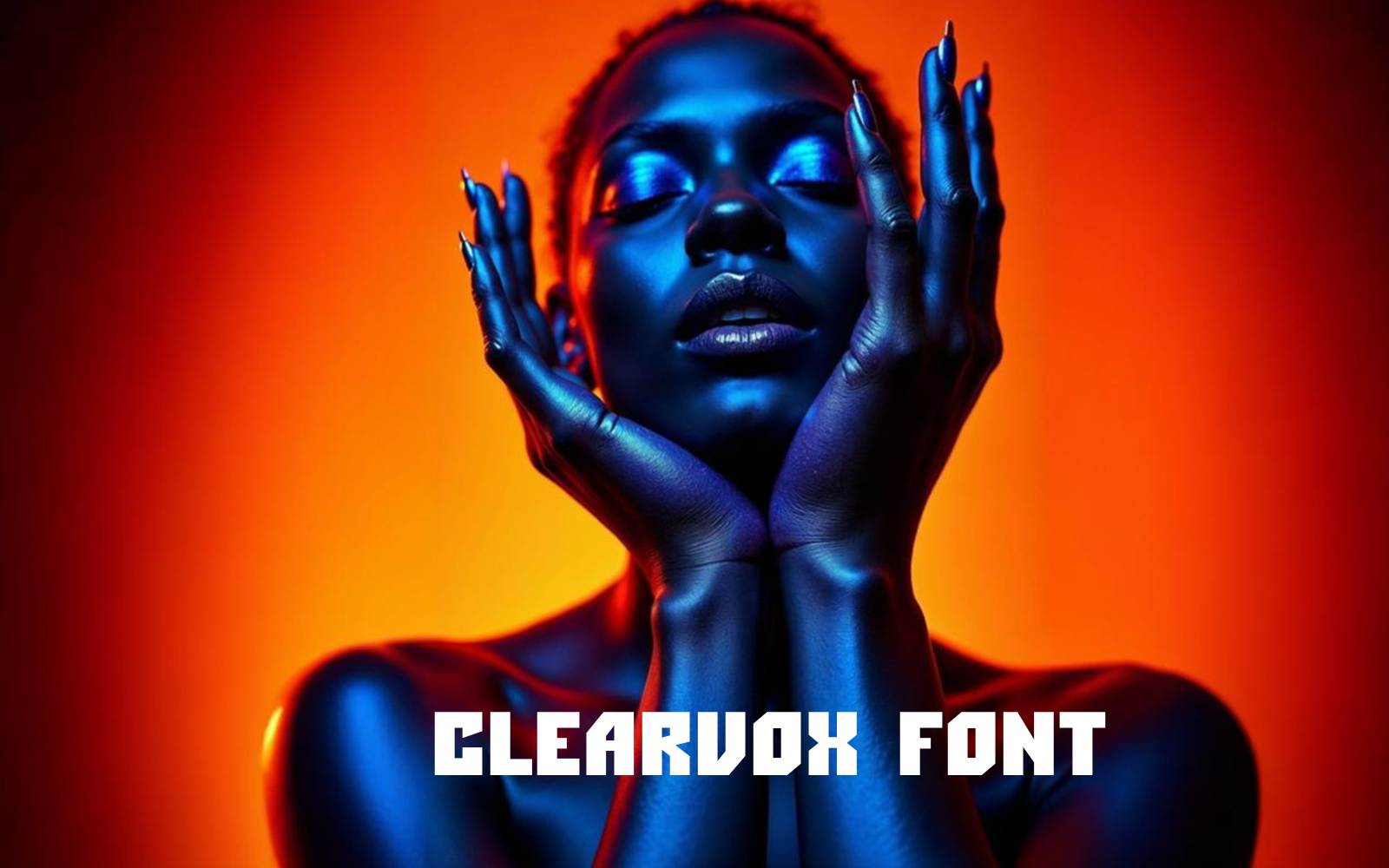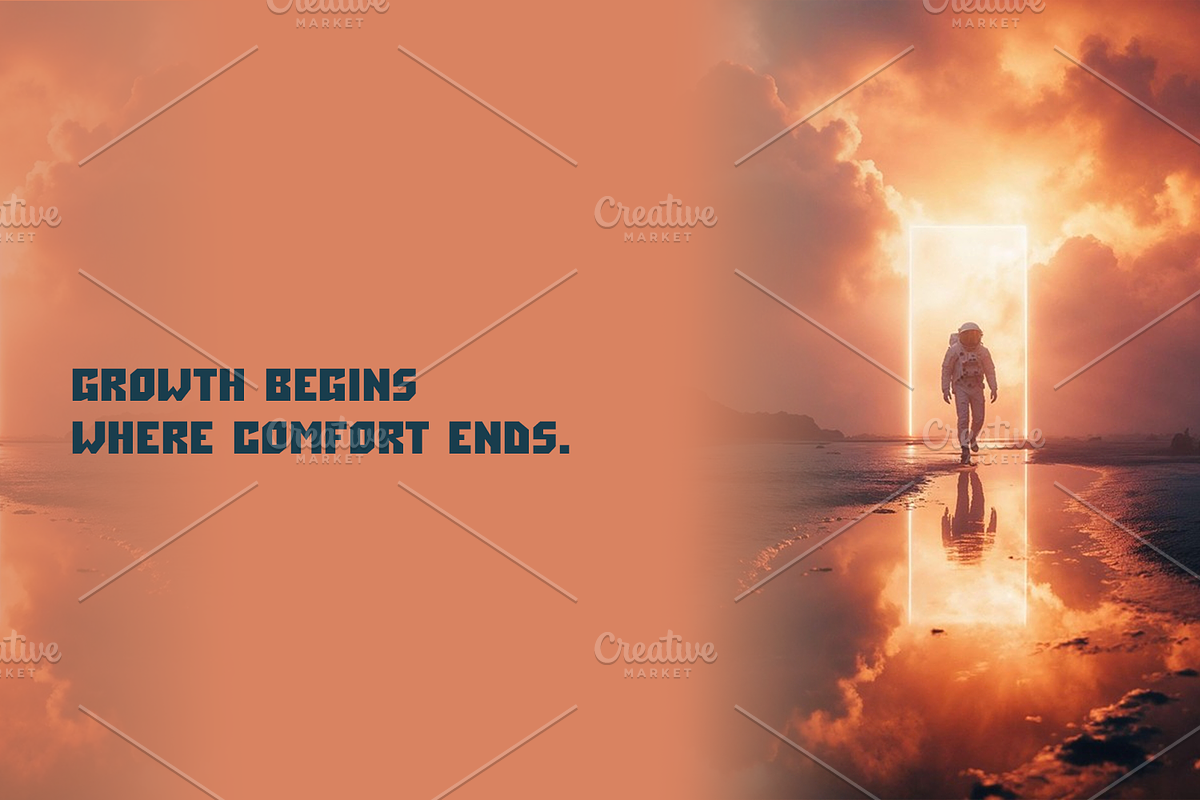
Clearvox font-Bold-073-25
Say more with less using Clearvox—a bold sans-serif crafted for clarity and confidence.
From startups to statements, it delivers clean, modern impact with zero noise.
Built for digital and printed precision, it adapts to every platform seamlessly.
Understated, but unforgettable.
Clearvox: The voice of modern design.